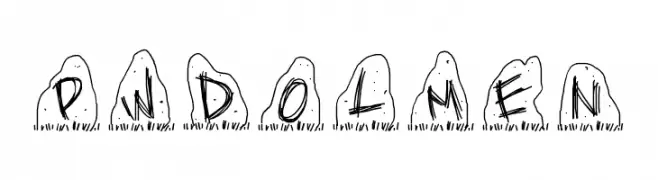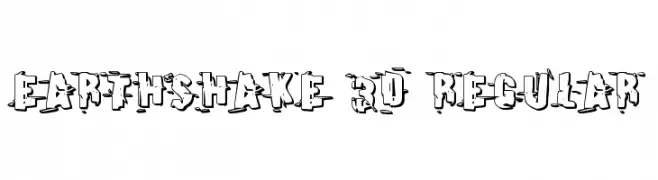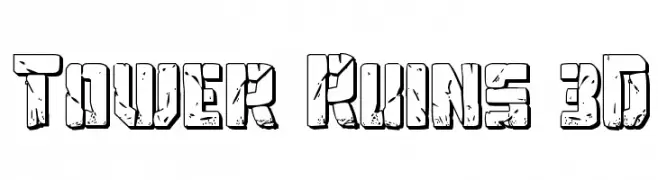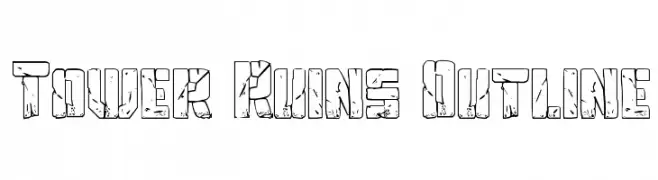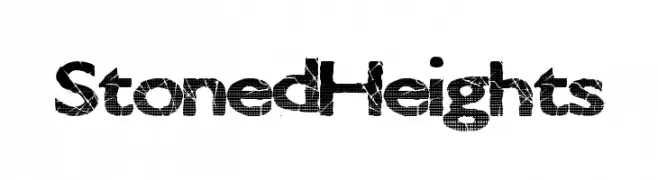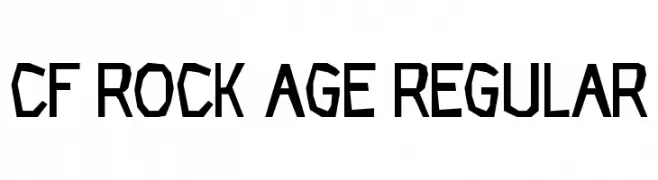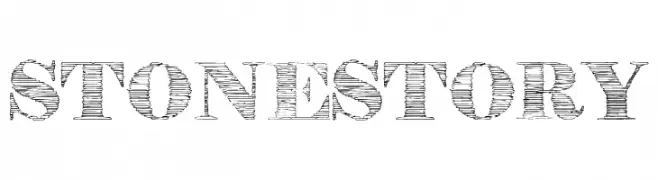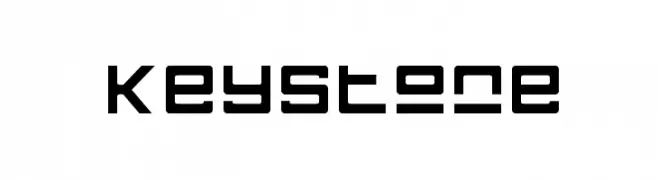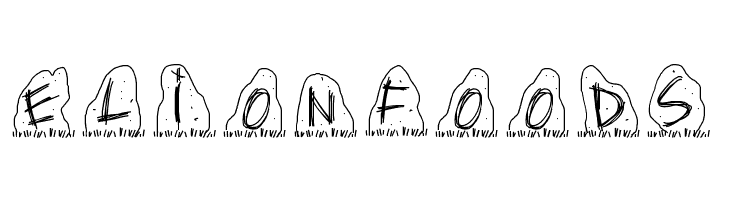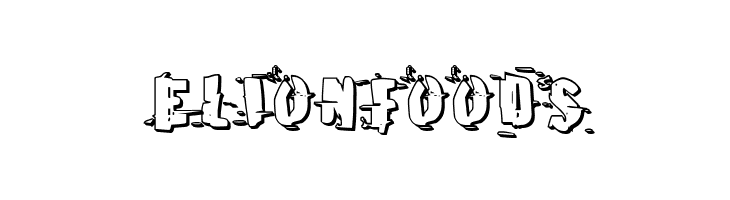
A whimsical, stone-encased font with a prehistoric aesthetic.
A bold, distressed 3D font with a rugged, stone-like appearance.
A bold, 3D block font with a distressed, stone-like texture.
A rugged, distressed outline font resembling ancient ruins or weathered stone.
A bold, textured font with a cracked stone appearance.
A rugged, angular font with a chiseled stone appearance.
A textured, stone-like serif font with a rugged, carved appearance.
A mystical and elegant font with elongated, narrow letterforms and sharp serifs.